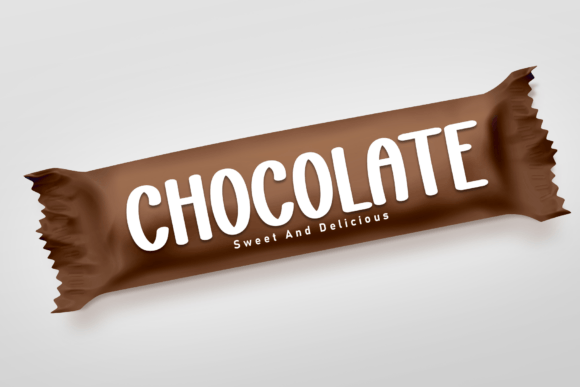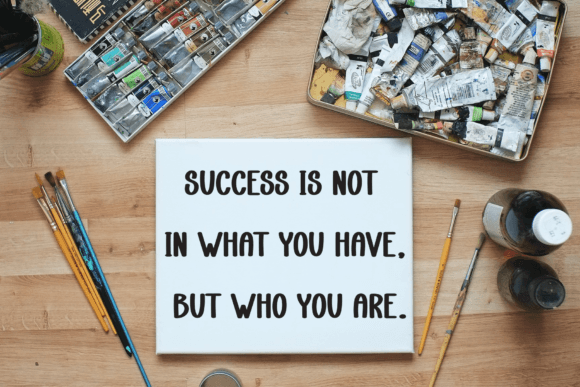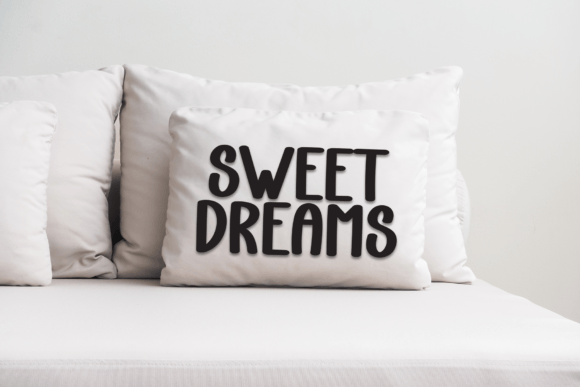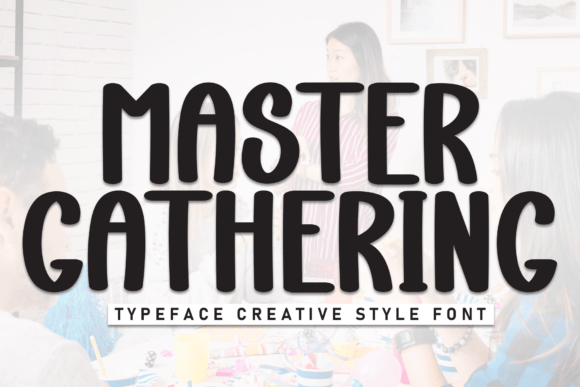
Introduction to Master Gathering Font
Master Gathering is a bold, handwritten font that has a casual and friendly style.
It features thick strokes and unique letter shapes, giving it a personal touch This font is perfect for invitations, logos, and any design that needs a warm and welcoming feel.